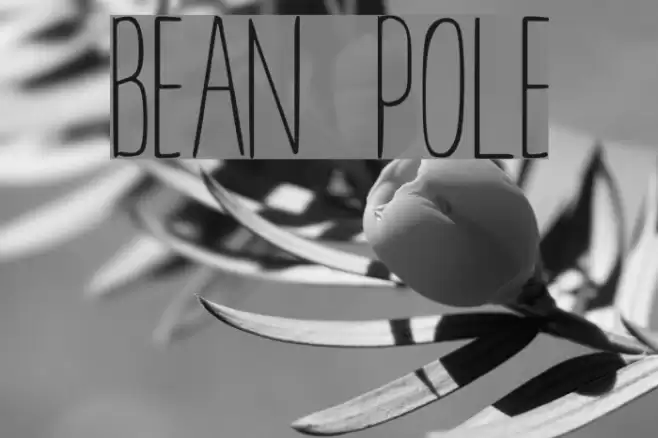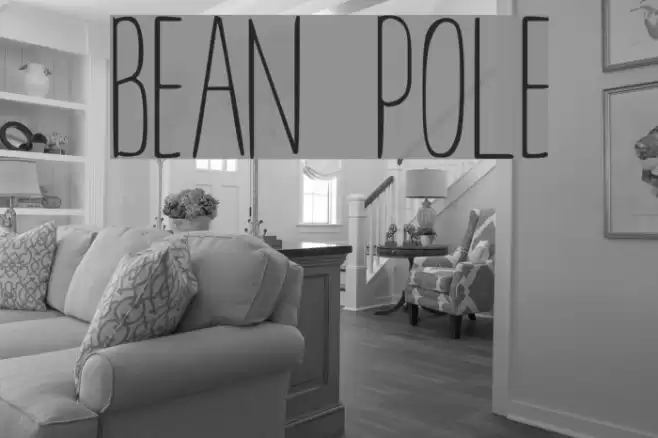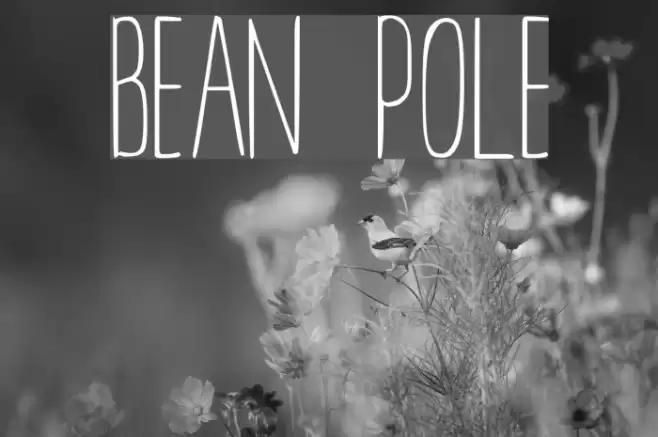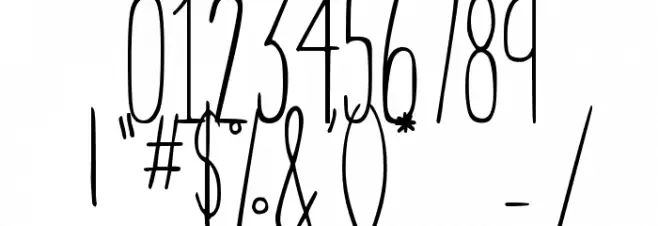
BEAN POLE Font
BEAN POLE Description
This font features an elongated and narrow design, characterized by its tall, thin letterforms that convey a sense of elegance and modernity. The strokes are consistent in width, providing a uniform appearance across both uppercase and lowercase letters. The numerals and special characters maintain the same slender aesthetic, ensuring a cohesive look throughout. Its minimalist style is accentuated by the lack of serifs, giving it a clean and contemporary feel. The font's unique structure makes it stand out, offering a distinctive option for creative projects.
A tall, thin, and modern sans-serif font with a minimalist design from Uncategorized fonts.